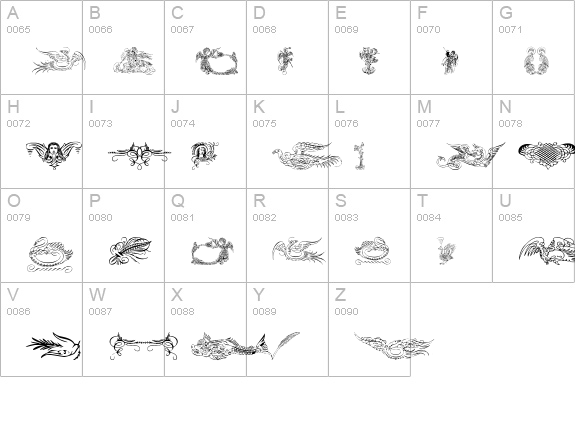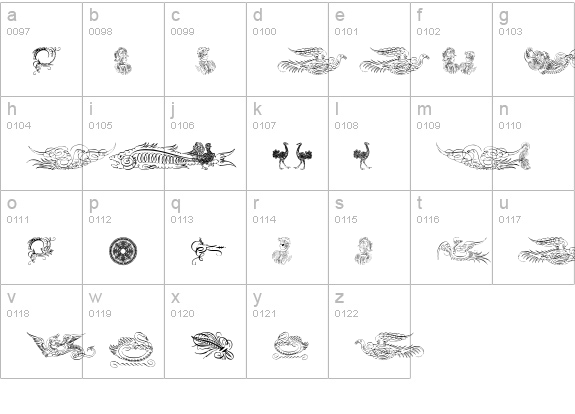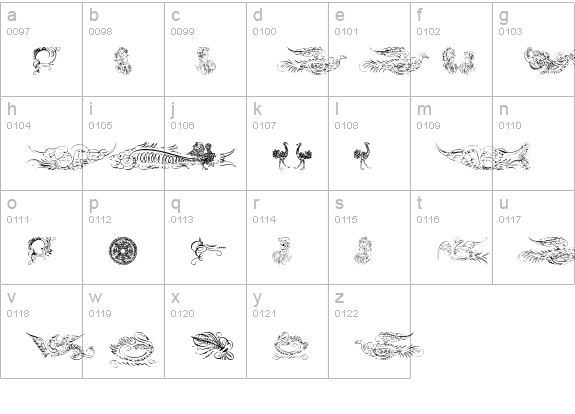
AprendizCaligrafico Font Details
AprendizCaligrafico font is a beautifully crafted typeface that exudes elegance and sophistication. Its graceful curves and intricate details make it perfect for adding a touch of refinement to any project. This font captures the artistry of traditional calligraphy while maintaining a modern flair that sets it apart. What makes AprendizCaligrafico font even more special is that it is available for free download at FontsMarket.com. This means that you can access this stunning typeface without any cost, making it a valuable addition to your design toolkit. Whether you're working on invitations, branding materials, or any other creative project, AprendizCaligrafico font will elevate your work with its timeless charm and versatility. Don't miss out on the opportunity to enhance your designs with this exquisite font. Download AprendizCaligrafico today and let its beauty inspire your creativity.